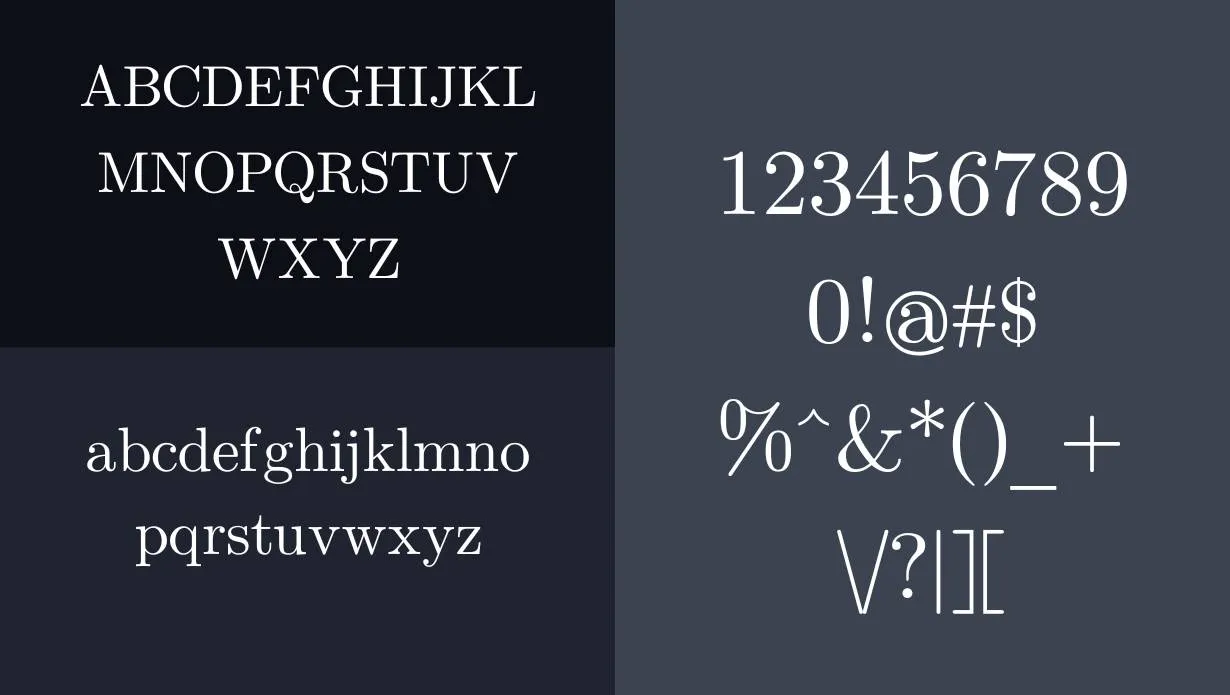
Symbola Font is a highly versatile and practical typeface known for its comprehensive support of various Unicode characters. This makes it an excellent choice for design projects that require a broad character set, including symbols, foreign languages, and special characters.
Whether you’re working on academic publications, technical documents, or any project where a wide range of characters is essential, Symbola ensures that your text remains inclusive and accessible across diverse languages and contexts. Use the droid serif font with its replacement or as a pairing features
Symbola Font Family